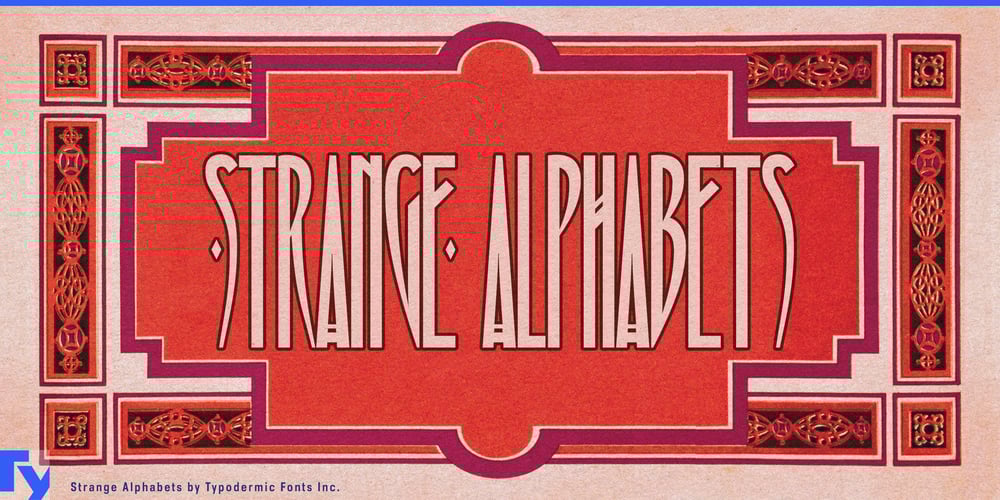
Strange Alphabets Font Family was designed by Ray Larabie and published by Typodermic. Strange Alphabets contains 1 styles and family package options. Step right up to the typographic wonder that is Strange Alphabets—a font that doesn’t just write words, it weaves spells! It’s a time-traveling, genre-bending masterpiece that fuses the opulent charm of gilded Victorian book covers with the edgy allure of 1980s punk aesthetics.Imagine letters that don’t just sit on the page, but perform—each one a tiny acrobat in a grand typographic circus. With Strange Alphabets, your words become miniature works of art, adorned with diamond ornaments that twinkle at the beginning and end of each word like typographic bookends. It’s as if each sentence is strutting down a red carpet, dripping with linguistic jewels. But wait, there’s more! This font doesn’t just play by the rules—it rewrites them. Words beginning with ‘M’ unleash a cascade of diamonds, transforming from a single gem to a dazzling trio. And ‘O’? Oh, it stands tall and proud at the start of words, like a ringleader commanding attention. For those Oolong aficionados and wordplay enthusiasts, double ‘O’s at the beginning of a word stretch skyward in tandem, while mid-word pairs intertwine in an elegant ligature dance.Strange Alphabets is the Swiss Army knife of typefaces, packed with features that let you customize your textual performance. Want to add a touch of whimsy? Transform your A’s and H’s into ring-bearers with a flick of the OpenType wand. Feeling minimalist? Strip those diamonds from your M’s faster than you can say “less is more.” Even the humble hyphen and dash get their moment in the spotlight, morphing into ring ornaments that add a touch of circus flair to your punctuation. This typeface doesn’t just cross linguistic borders—it leaps over them with the grace of a seasoned acrobat. Supporting a vast array of Latin-based European writing systems, Strange Alphabets ensures your message maintains its magical allure whether you’re writing in Albanian or Zulu, French or Finnish.So when your design needs to break free from the mundane, when you want your words to sing, dance, and perform linguistic acrobatics, reach for Strange Alphabets. It’s a typographic extravaganza, a celebration of the weird and wonderful world of letters. With Strange Alphabets, you’re not just typing; you’re directing a spectacular show where every character is the star.